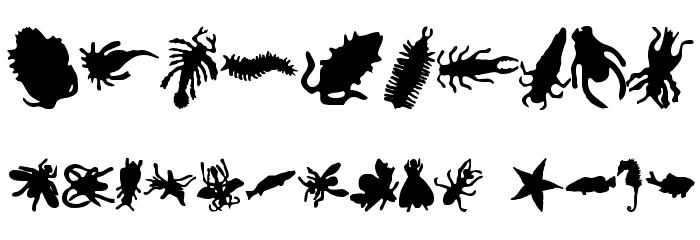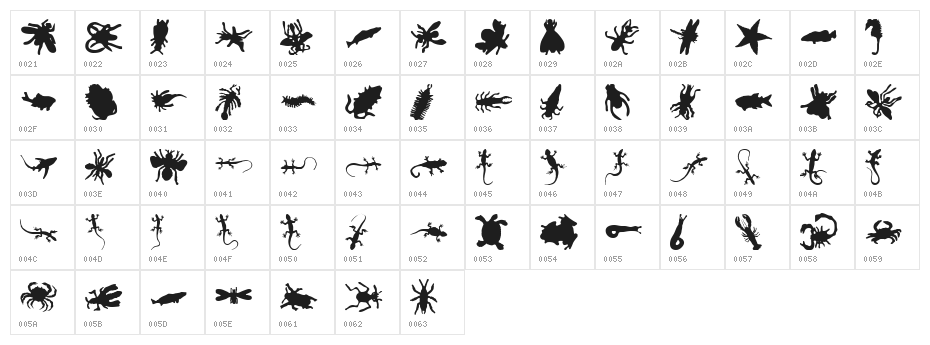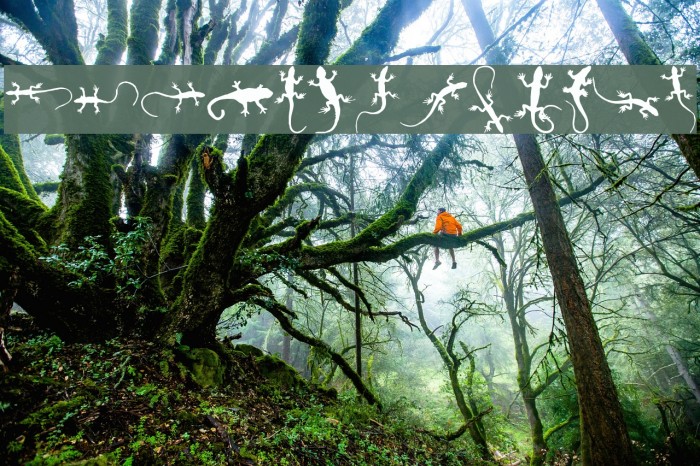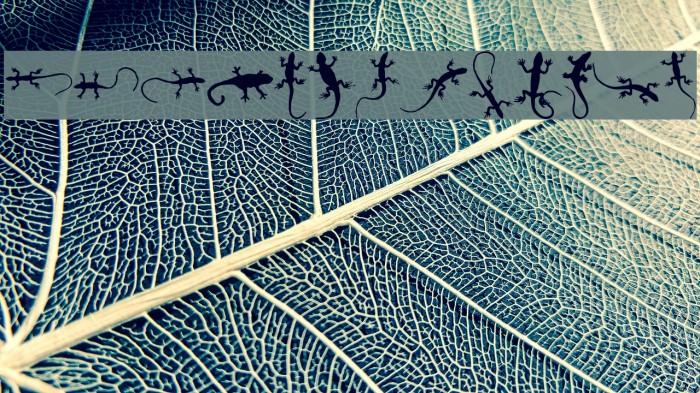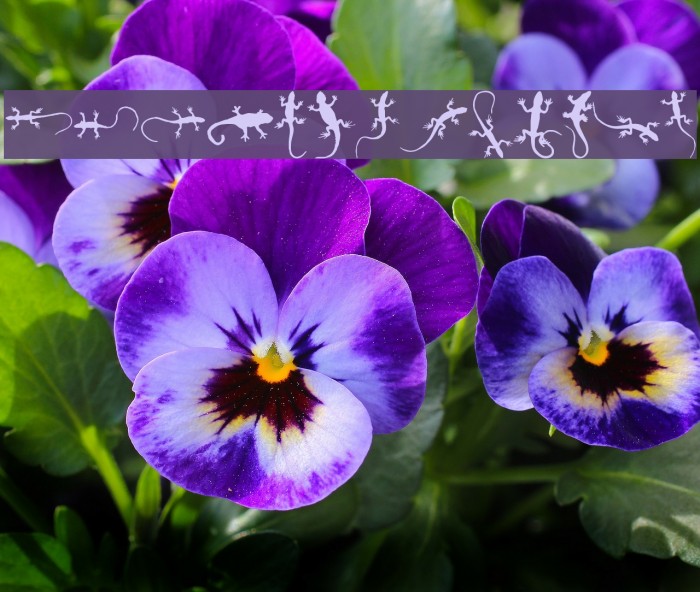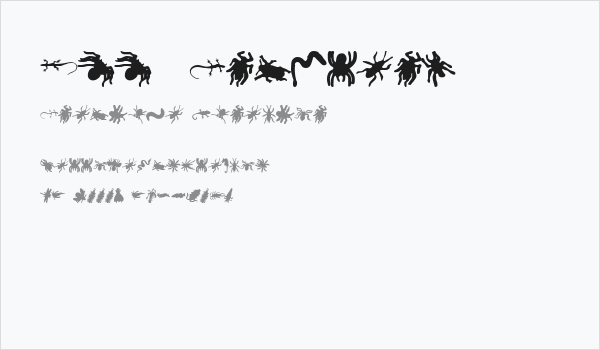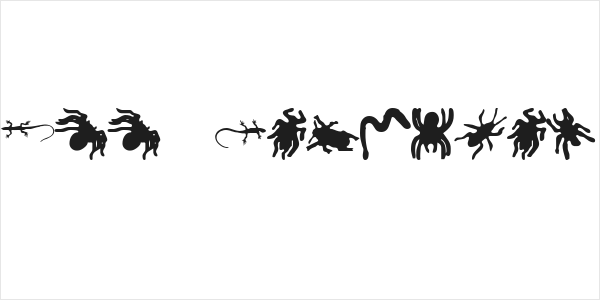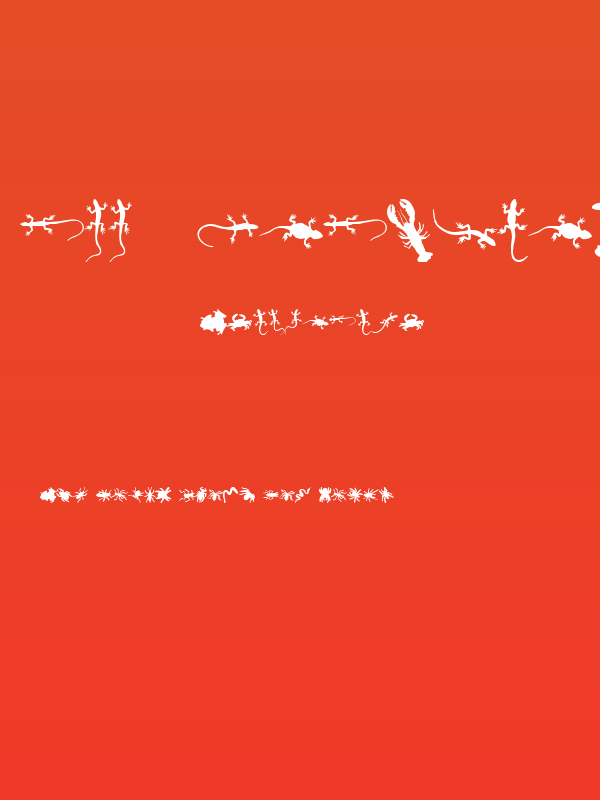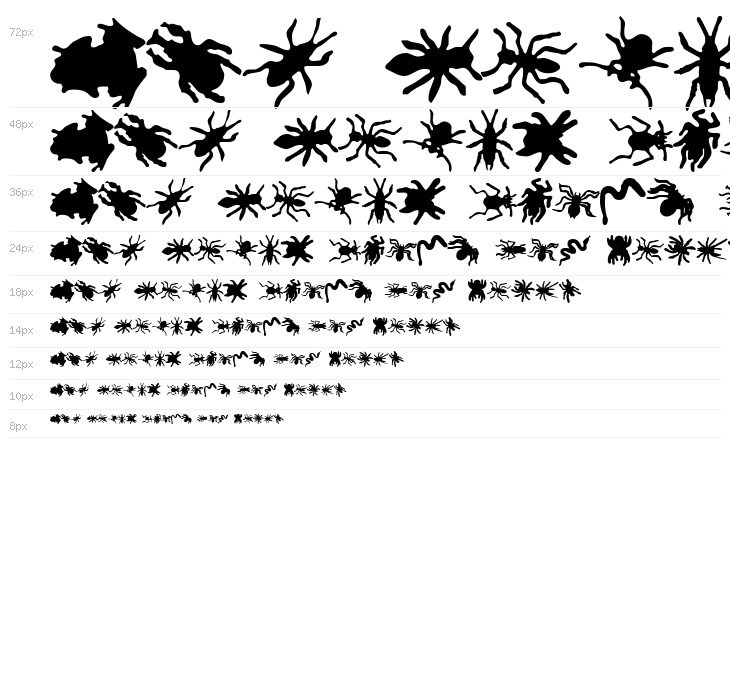
Ann Crawlers Font
Ann Crawlers Description
A collection of silhouette glyphs representing various crawling and creeping animals, including lizards, insects, crustaceans, arachnids, mollusks, and other invertebrates. Each character is a distinct, detailed black silhouette with no typographic letterforms present.
| Overall Style | Decorative, Thematic |
| Use Case | Illustrative elements, Borders, Icons, Themed graphics |
| Proposed Projects | Nature-themed posters, educational materials, Halloween decorations, science presentations, children's books, and creative borders. |